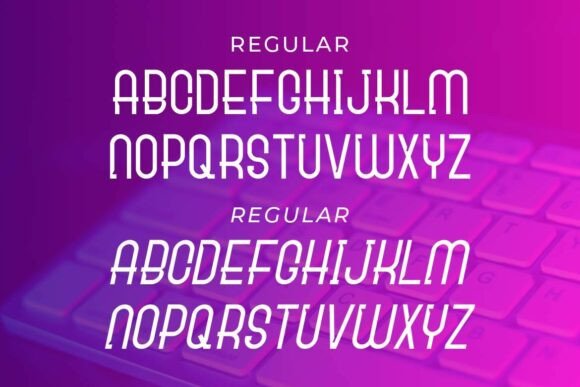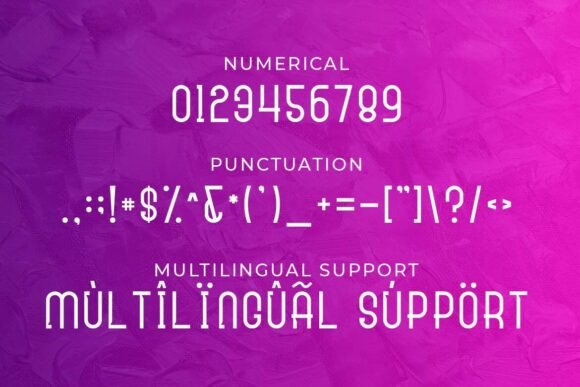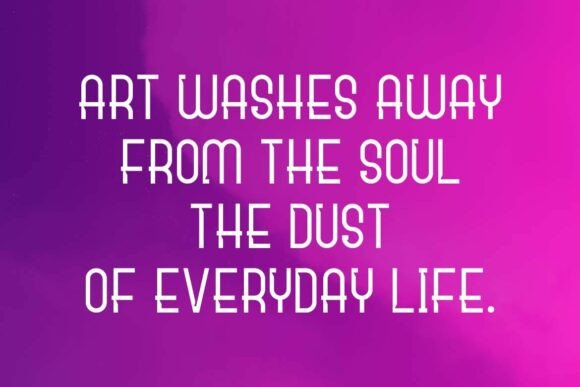
Introduction to Manikmaya Font
Manikmaya is a modern creative sans serif font that blends contemporary form with expressive uniqueness.
Its clean lines are accented by subtle artistic quirks, making it perfect for branding, editorial layouts, fashion design, posters, and creative projects that demand both clarity and individuality .